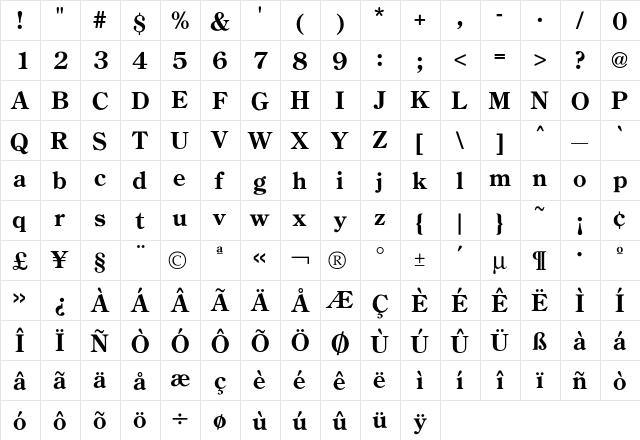
Century OldstyleICGBold Font Preview
Century OldstyleICGBold
Design Context for Century Typeface
Century carries the refined structure of traditional serif typography, with bracketed terminals and considered proportions that communicate credibility and craft. Its bold stroke weight gives it real presence on the page.
Pro Tip: Use Century for editorial body copy and considered headline work. Pair with a neutral sans for UI elements or captions to create a classic hierarchy.